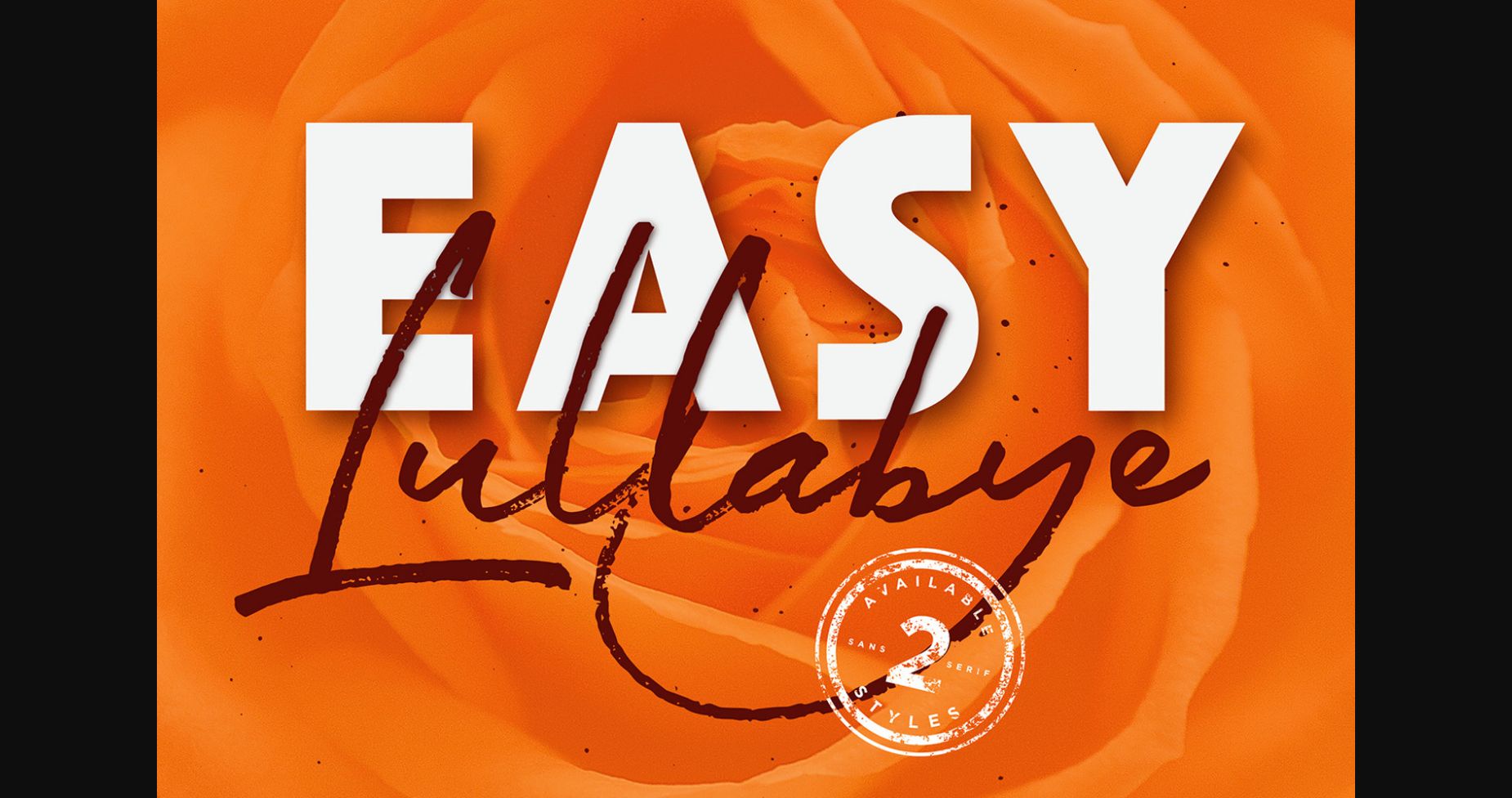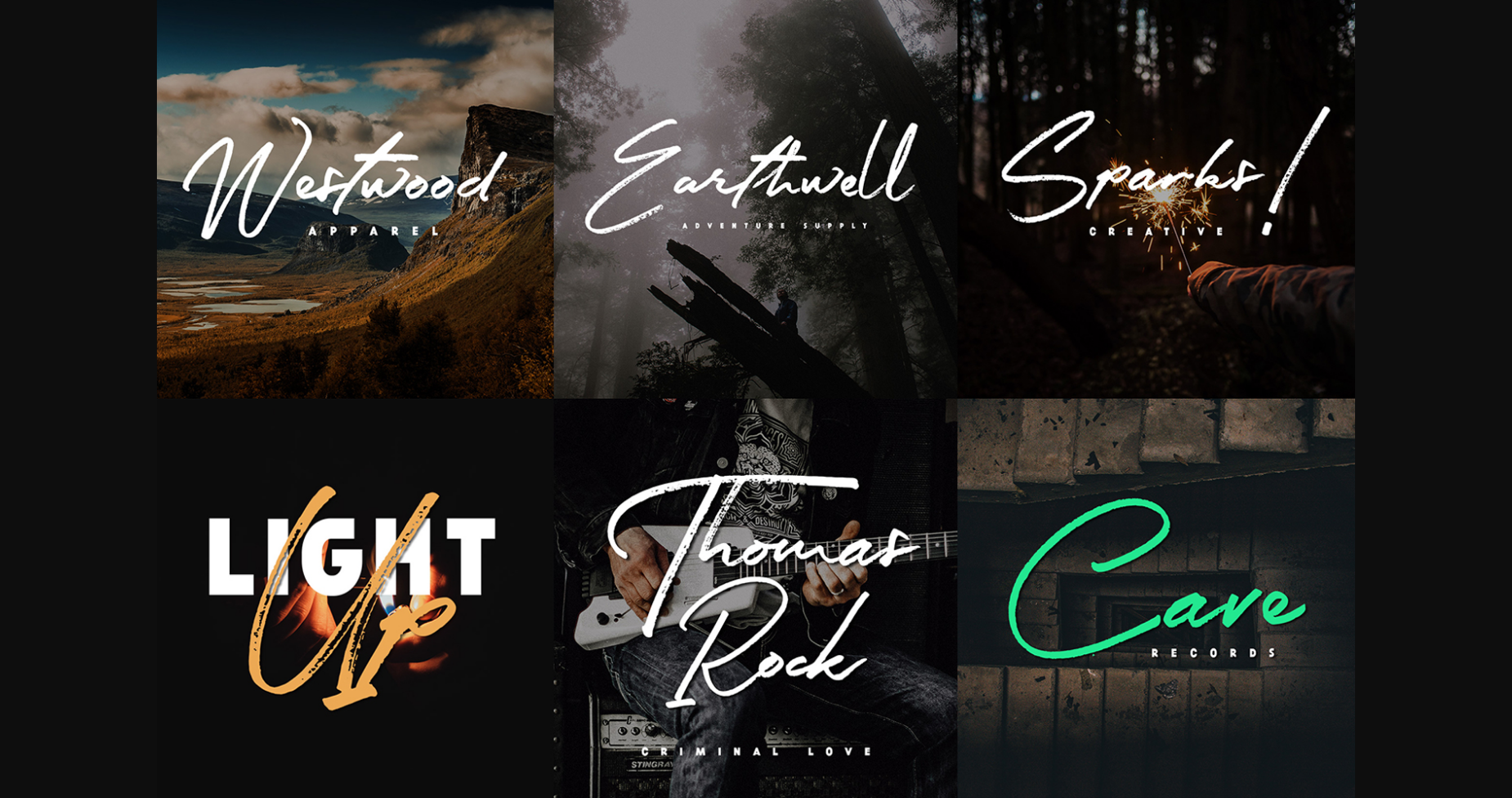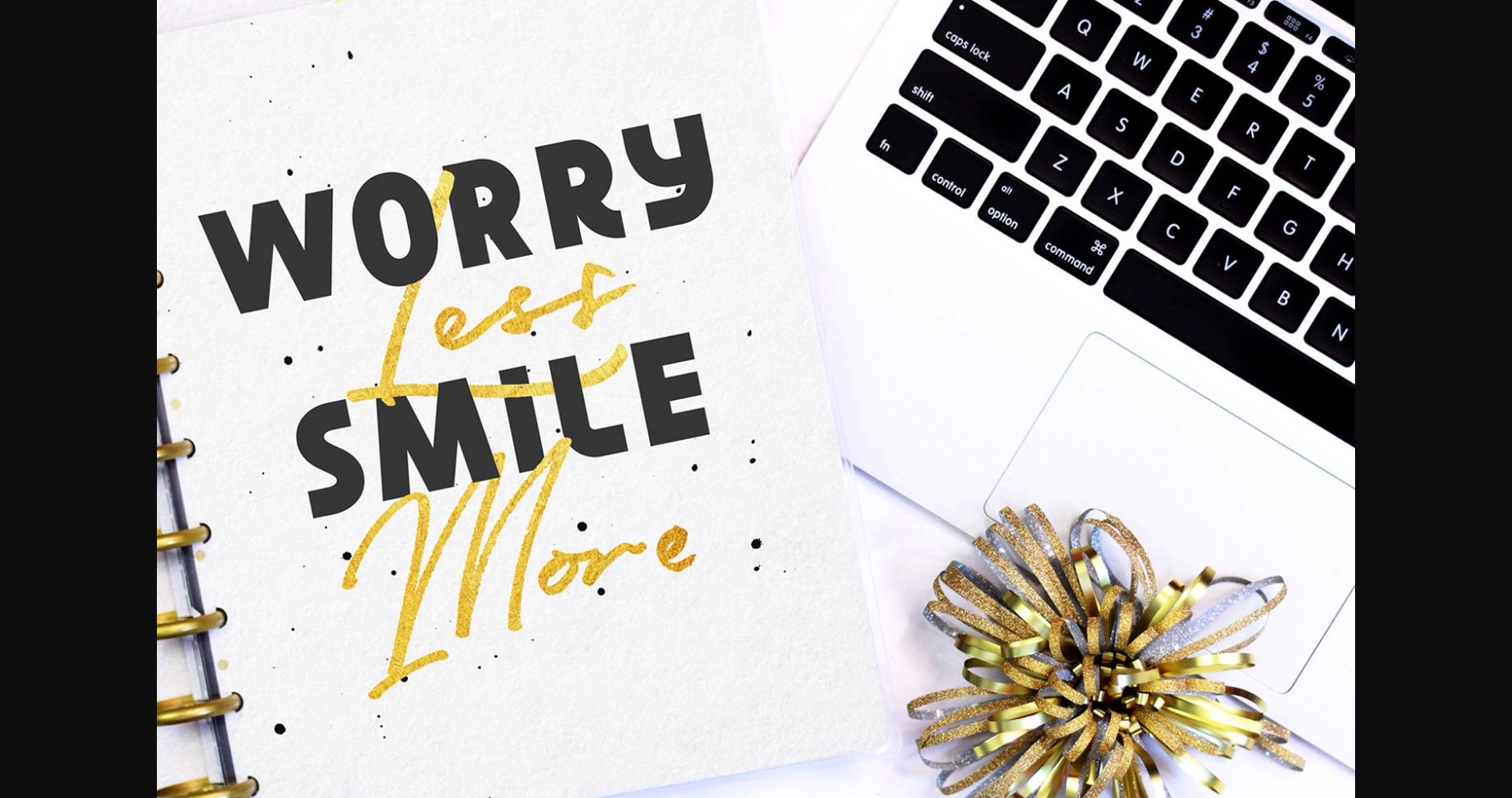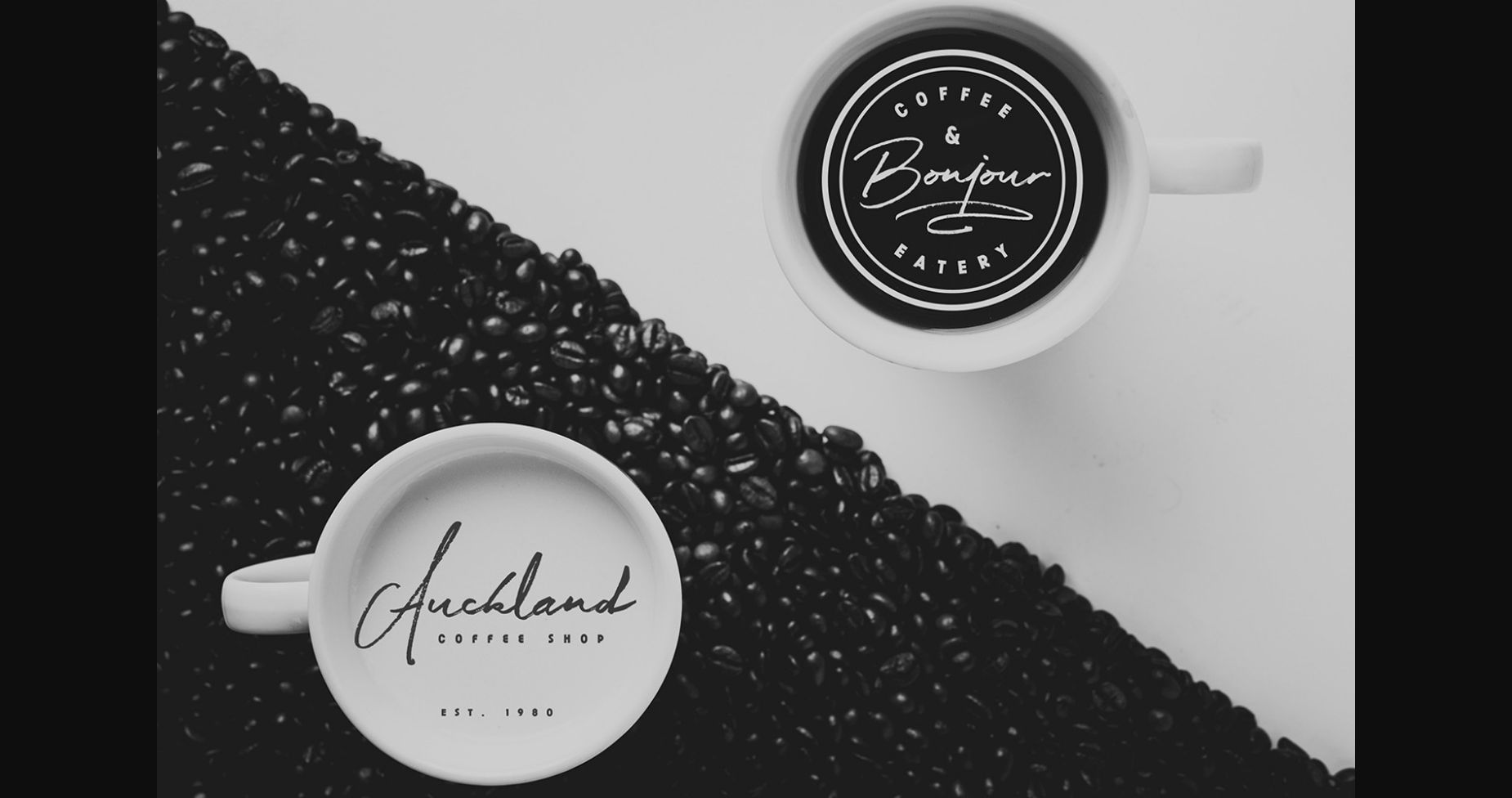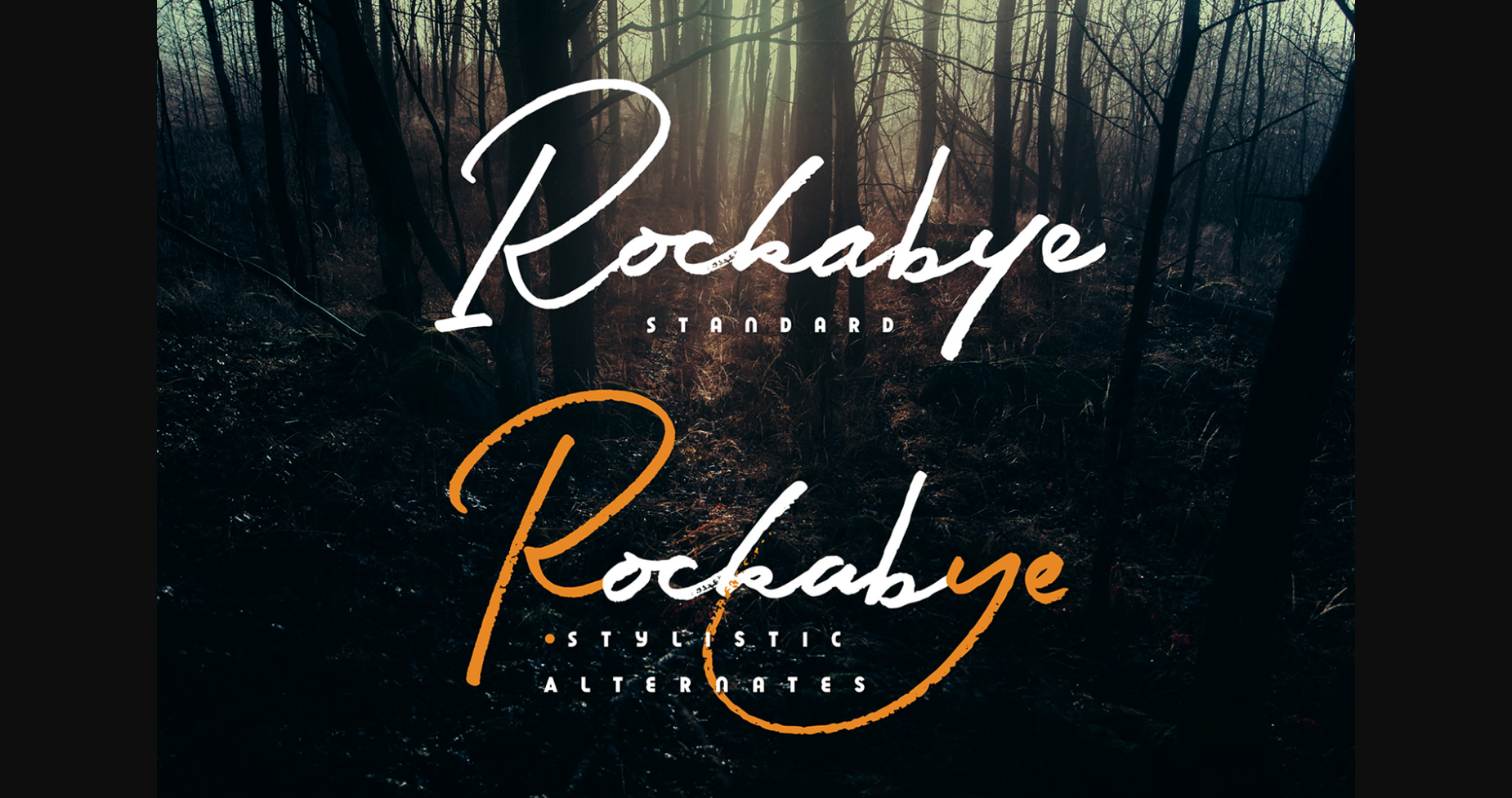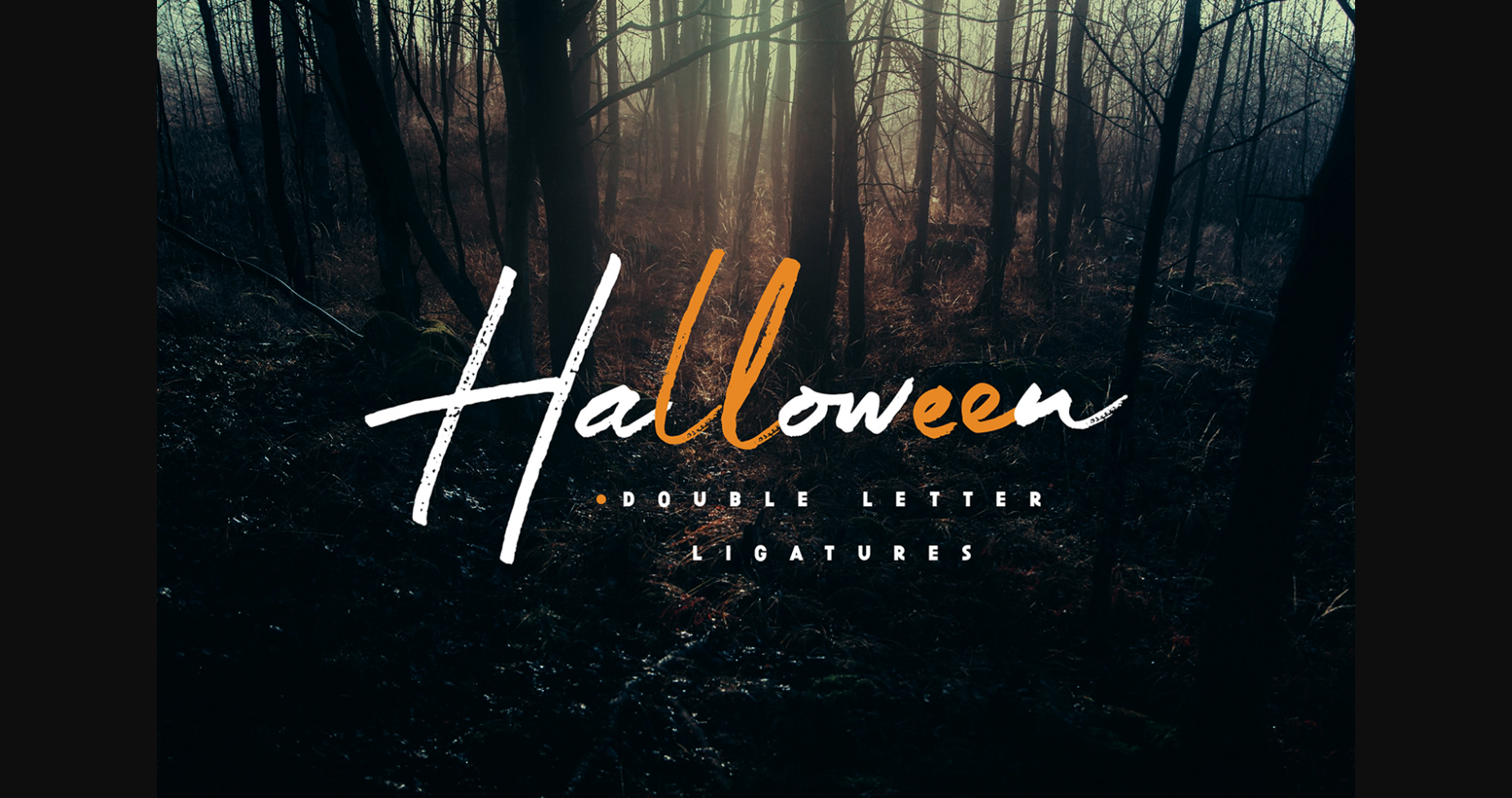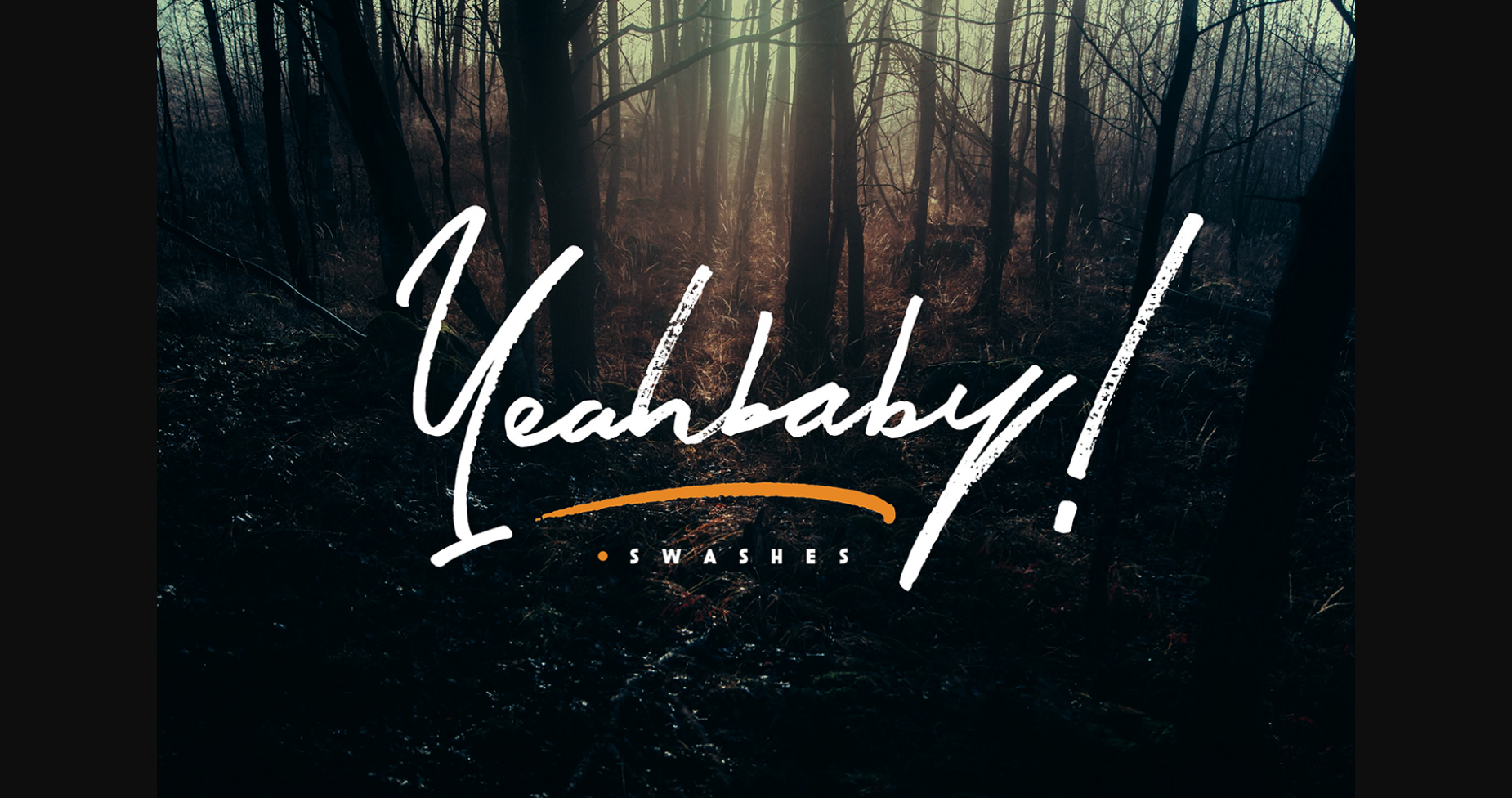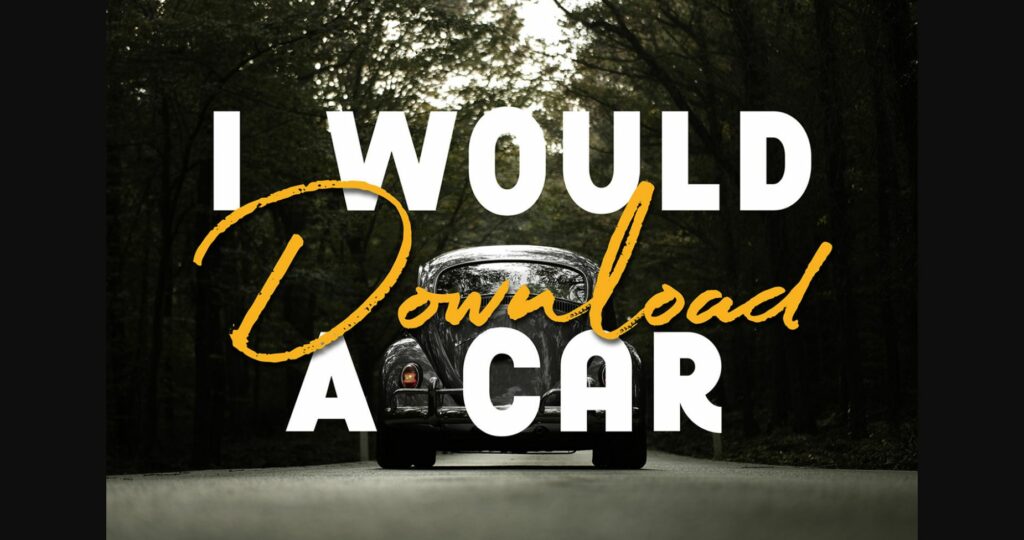
HomeSans Serif FontsEasy Lullabye Font Sans Serif Fonts Easy Lullabye Font FacebookXPinterestWhatsApp 1 of 10 ... Easy Lullabye Font Poster 2... Easy Lullabye Font Poster 3... Easy Lullabye Font Poster 4... Easy Lullabye Font Poster 5... Easy Lullabye Font Poster 6... Easy Lullabye Font Poster 7... Easy Lullabye Font Poster 8... Easy Lullabye Font Poster 9... Easy Lullabye Font Poster 10... About Easy Lullabye Font Easy Lullabye is an unique and versatile duo font (sans serif and script). This original look will appeal to a wide range of crafty ideas, from letterheads and titles, to stationery. DOWNLOAD NOW People also explored Sallyd Font Hammerte Font Rosellya Font Mandarina Font Nicolas Font Haleigh Script Font Dr Thick and Curvy Font Jegasup Font Dinomax Font 319 0 TagsEasy Lullabye Font Previous articleMelatea FontNext articleSubtle Curves Font LEAVE A REPLY Cancel reply Comment: Please enter your comment! Name:* Please enter your name here Email:* You have entered an incorrect email address! Please enter your email address here Website: Save my name, email, and website in this browser for the next time I comment. Personal Use Free Nickainley Personal Use Free Read more about this font A New Nattyla Personal Use Free Read more about this font Autumn Flowers Font Personal Use Free Read more about this font Super Bubbly Font Personal Use Free Read more about this font BLOG Fonts That Capture the Spirit of New York City New York City is more than just a place—it’s an experience, a rhythm, a visual language... Top 7 Google Fonts Alternatives for Faster and Privacy-Friendly Web Design (2025) Free Fonts Risk: Why Free Fonts Can Be Dangerous for Designers Best Fonts for T-Shirt Design – Top 2025 Picks